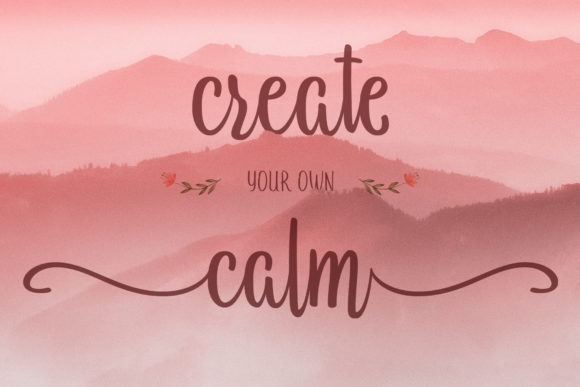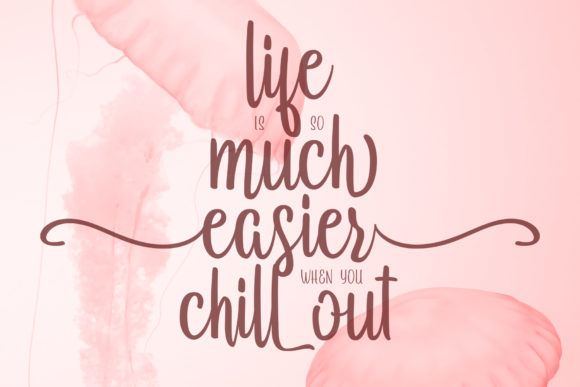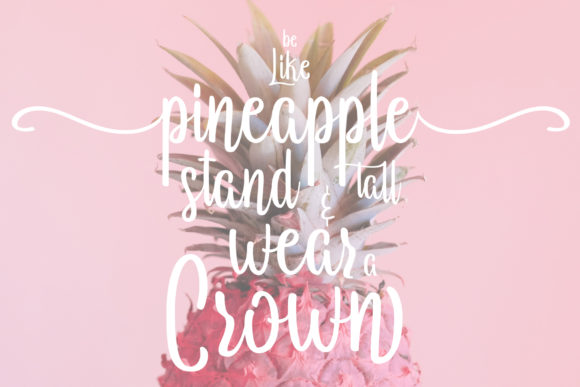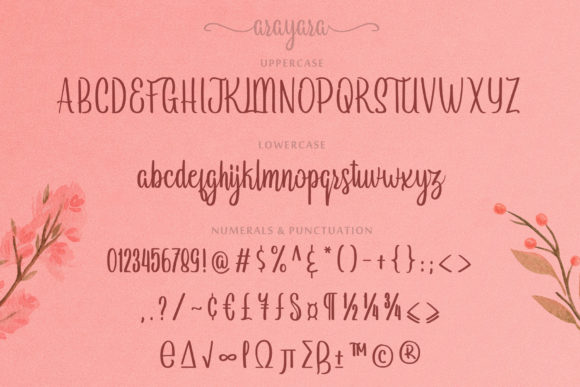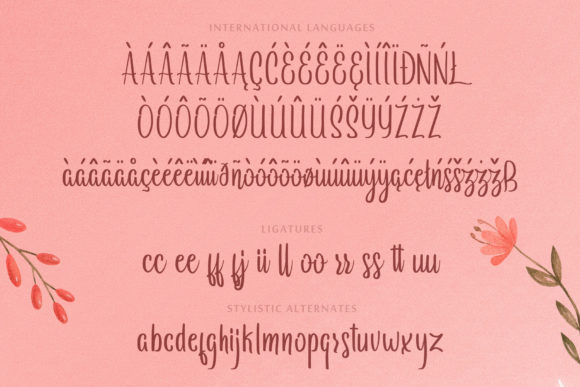
Discover the Magic of Handwritten Design
Have you ever stared at a blank canvas, waiting for inspiration to strike? You’ve scribbled notes, brainstormed ideas, and doodled patterns, but nothing seems to capture the essence of your creative vision. That’s when you stumble upon the perfect font – one that whispers romance, elegance, and whimsy. For designers and creatives, finding the right font can make all the difference between a good design and a breathtaking masterpiece.
Enter Arayara Font, a delicate and romantic handwritten font that will transport your creative projects to new heights. This stunning font is designed to add a touch of sophistication and charm to any design, making it a valuable addition to any designer’s toolkit. Whether you’re crafting a wedding invitation, a birthday card, or a social media post, Arayara Font is sure to leave a lasting impression.
Arayara Font Key Features
- Font Style: Script, Calligraphy
- Font Size: 300 glyphs
- Language Support: Multilingual support for various languages, including Latin, Cyrillic, and Devanagari scripts
- Unique Characteristics: Elegant, cursive design with intricate details and flourishes, ideal for creative and artistic applications
Arayara Font Review
When I first laid eyes on Arayara, I was struck by its unique and elegant design. The font has a ✨ distinctive flair that sets it apart from more traditional typefaces. I appreciate the attention to detail in its cursive script, which adds a touch of sophistication to any text.
One of the standout features of Arayara is its ✨ versatility. It works beautifully in a variety of contexts, from formal invitations to casual greeting cards. The font’s ✨ expressive qualities make it perfect for designers looking to add some personality to their work.
- ⚠️ Limited character set: Arayara’s character set is somewhat limited, which may be a concern for designers working with languages that require a wide range of characters.
- ⚠️ Inconsistent spacing: I’ve noticed that the font’s spacing can be inconsistent at times, which may affect the overall flow of text.
Overall, I’m impressed by Arayara’s unique design and versatility. While it may have some limitations, I believe it’s a valuable addition to any designer’s toolkit. With a little finesse, Arayara can add a touch of magic to any project.
The Arayara Font is versatile and can be used in various projects, including:
- Invitations and event materials
- Posters and social media graphics
- Branding materials